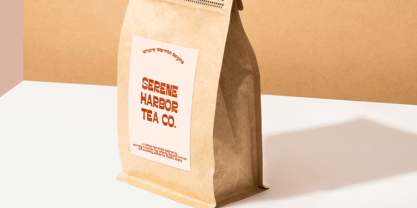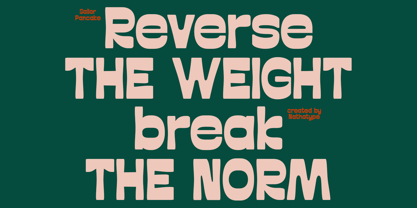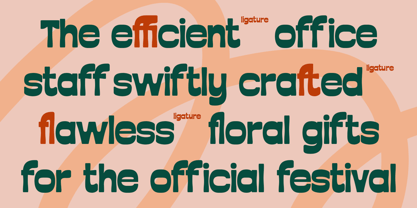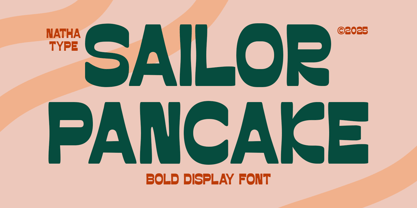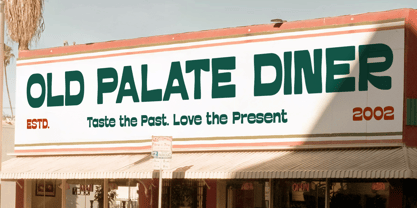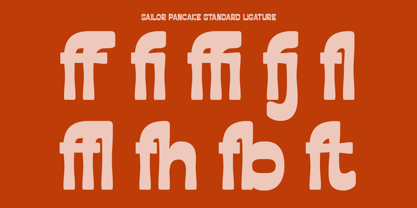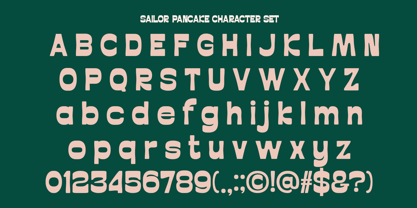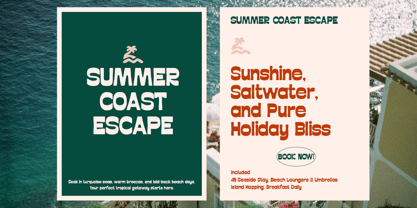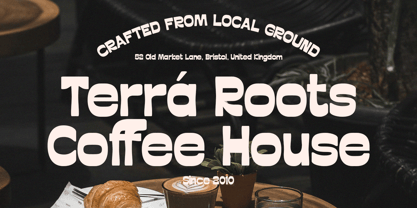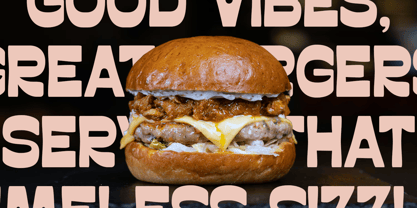
Sailor Pancake
La famille de polices Sailor Pancake a été conçue par Donis Miftahudin et publiée par Nathatype. Sailor Pancake contient 1 styles. En savoir plus sur cette famille
Sailor Pancake is a distinctive display font designed to balance bold visual impact with a warm, friendly personality. Crafted with a bold weight, clearly visible contrast, and softly angled letterforms, this font delivers strong presence while maintaining a gentle, approachable impression. It’s the perfect choice for designers who want eye-catching typography that still feels smooth, playful, and inviting. In addition, enjoy the features here. Features: Ligatures Multilingual Supports PUA Encoded Numerals and Punctuations Sailor Pancake fits in logos, quotes, branding, posters, and many more designs. Find out more ways to use this font by taking a look at the font preview. Thanks for purchasing our fonts. Hopefully, you have a great time using our font. Feel free to contact us anytime for further information or when you have trouble with the font. Thanks a lot and happy designing.